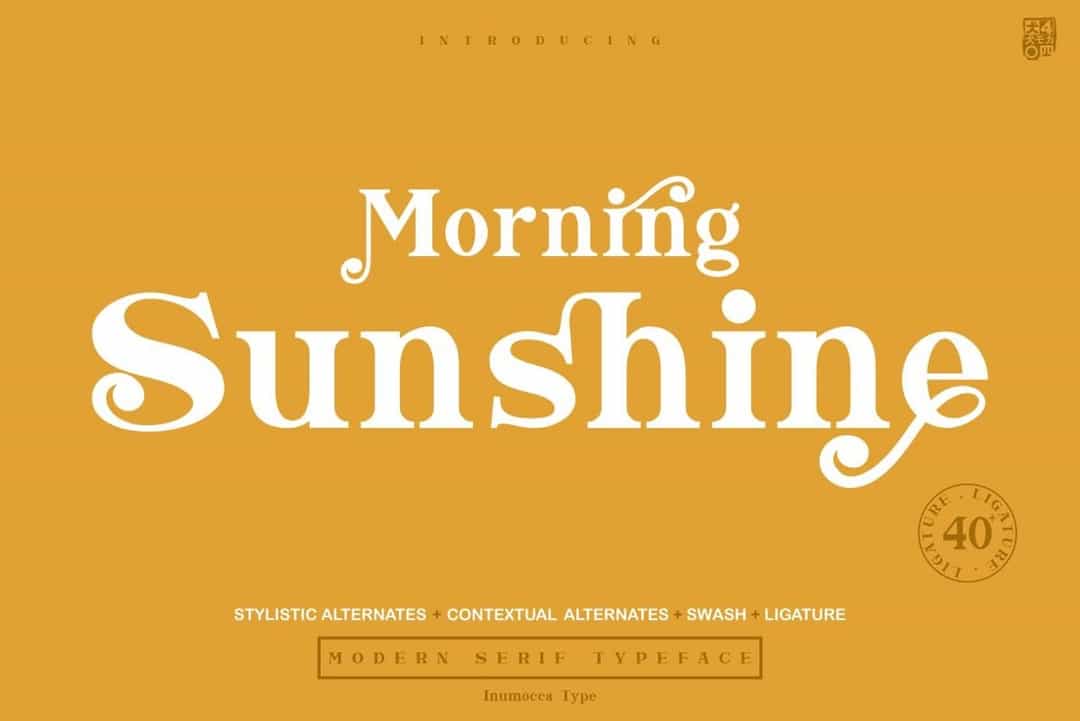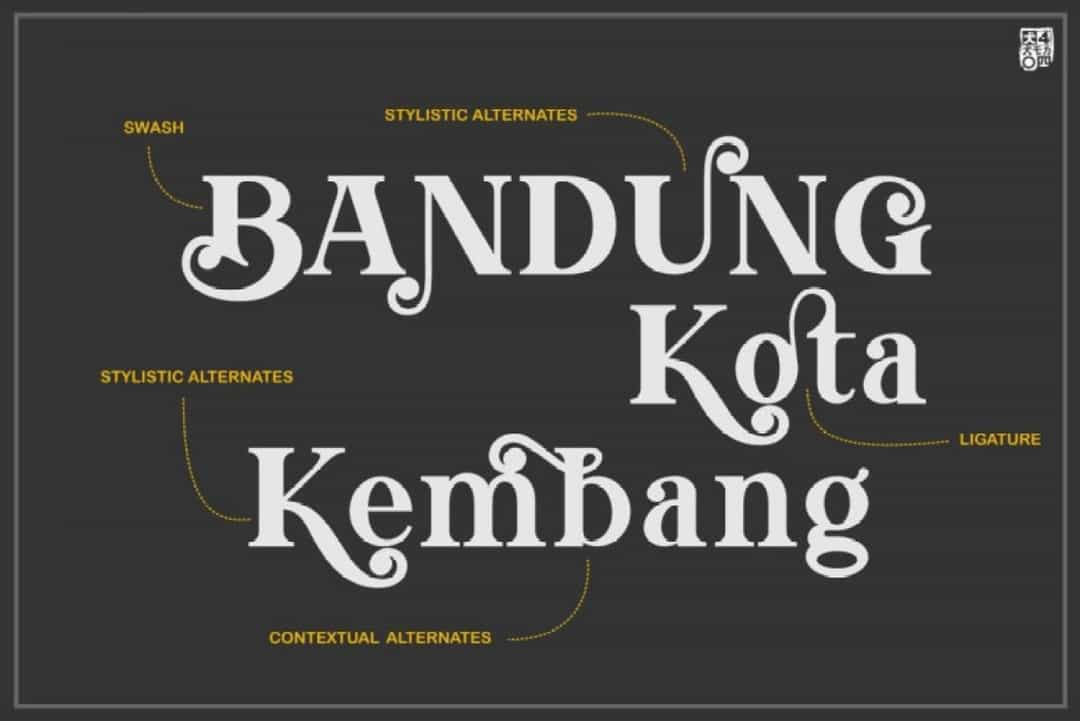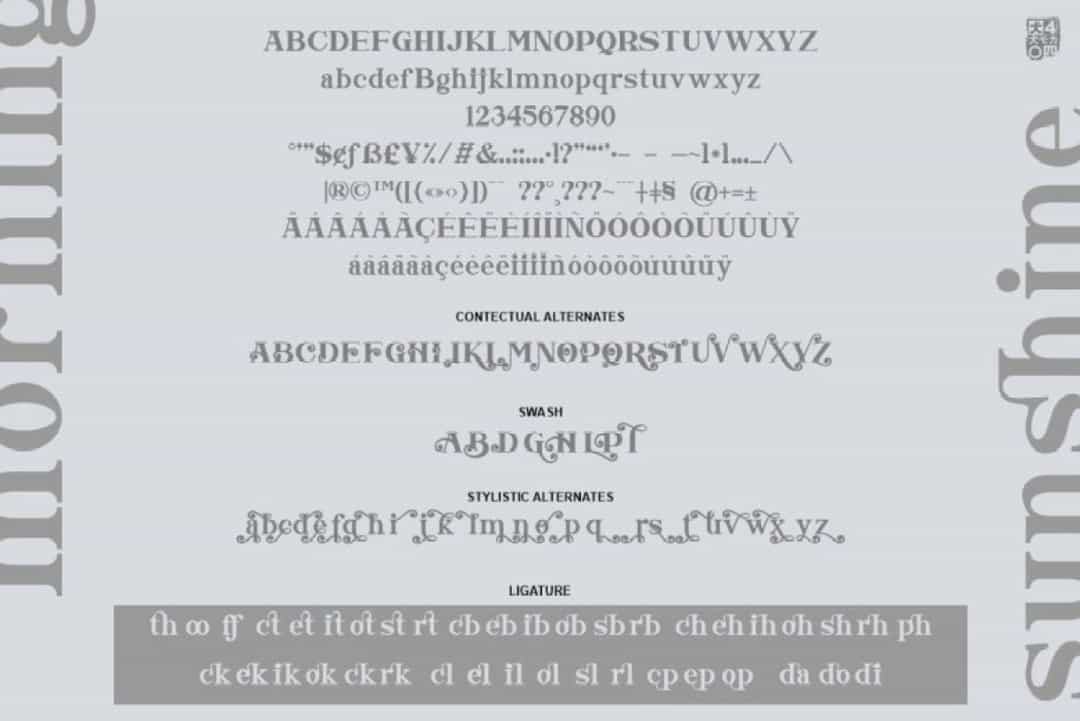
Morning Sunshine Font is simple and stylish, with the Open Type feature to give access to Ligature, contextual alternates stylistic set and swash. Suitable for creating magazine branding projects including posters or wedding invitations, and T-shirt logos!